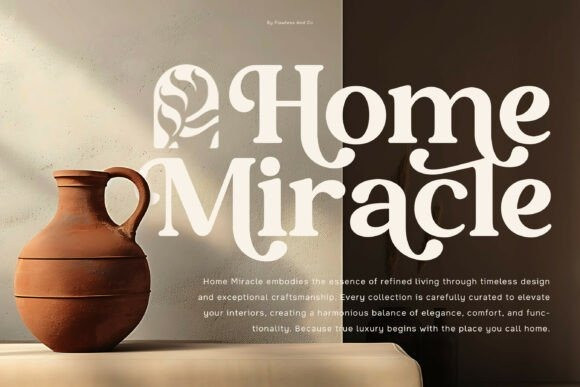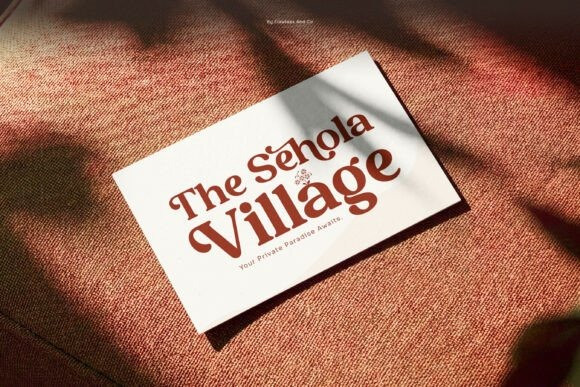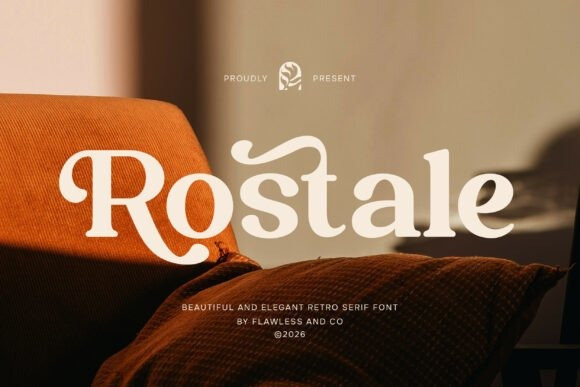
Rostale Font
Rostale Font is an elegant beautiful retro serif font that blends timeless vintage charm with refined modern sophistication. Featuring graceful serif details, beautifully balanced proportions, and retro-inspired letterforms, Rostale creates a luxurious visual presence that feels both nostalgic and contemporary. Its elegant curves and classic styling make it the perfect choice for designs that seek warmth, beauty, and enduring style.